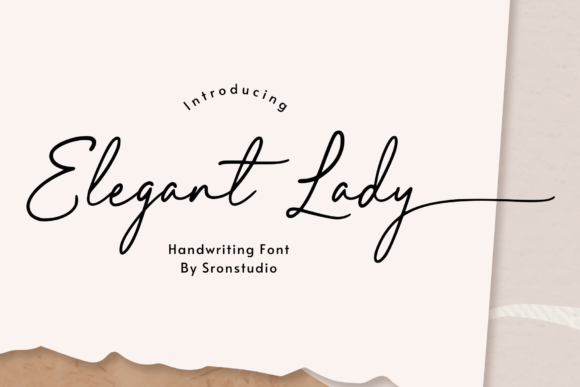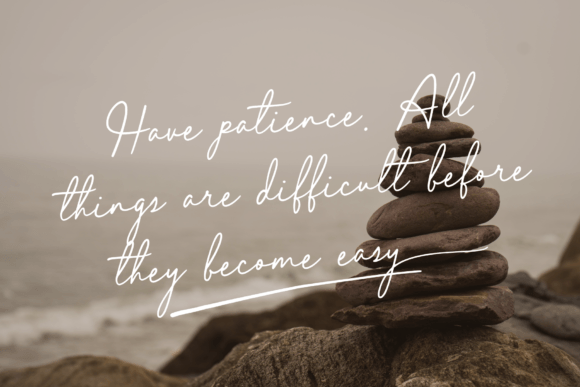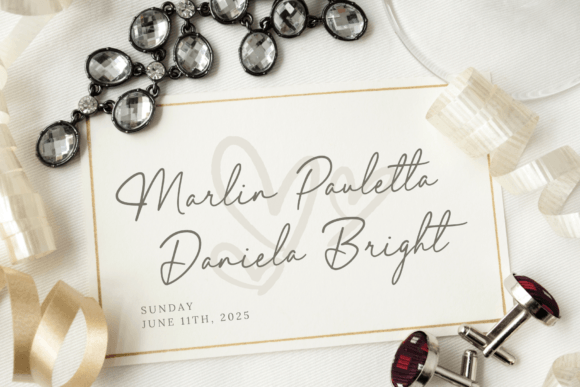
Elegant Lady Font: A Timeless Script for Wedding & Invitation Design
About the Elegant Lady Font
Step up your design game with Elegant Lady Font, a font that exudes confidence and style. Elegant Lady is a script font designed for moments of pure beauty, specifically tailored for weddings. With its graceful and flowing letterforms, this font adds an exquisite touch to any wedding-related project. Perfect for invitations, place cards, or any design element requiring a sophisticated and elegant script, Elegant Lady brings a timeless charm that complements the beauty of a wedding day, enhancing the visual allure of your special moments.
Elegant Lady thrives in applications requiring a touch of refined elegance. It excels in wedding stationery (invitations, programs, menus), short quotes on luxury product packaging, and as a stylish signature element in branding for high-end boutiques or similar businesses. However, its delicate nature makes it unsuitable for body text or UI elements where legibility is paramount. Avoid using it for large blocks of text.
Pairing Elegant Lady effectively requires considering its inherent grace. A clean sans-serif like Lato or a modern serif like Playfair Display would provide excellent contrast and enhance readability when used alongside it. For a more playful feel, a light, hand-drawn sans-serif could be considered, but should be used sparingly to maintain the overall sophisticated tone.
The font’s core personality is undeniably elegant and sophisticated, conveying a sense of timeless charm and refined taste. Its graceful curves and delicate flourishes evoke a feeling of romanticism and luxury, making it ideal for projects targeting a discerning clientele.